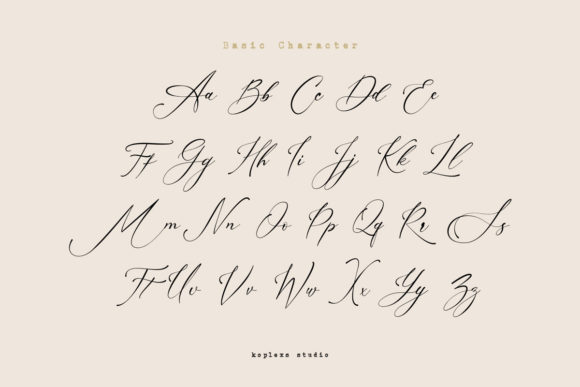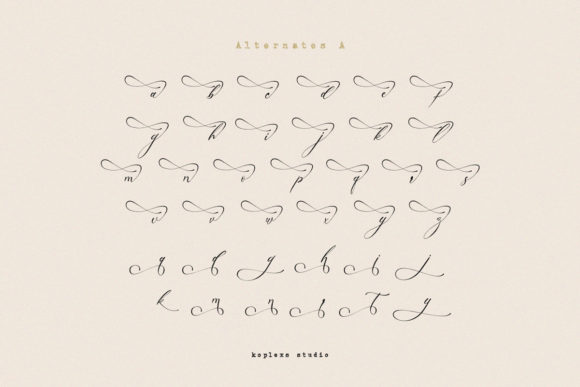
About Amsterline Font
AmsterlineĀ is a slim and delicate script font. It is suitable for book texts, documentation, business reports, business correspondence, magazines, newspapers, posters, advertisements, multimedia, and corporate design.